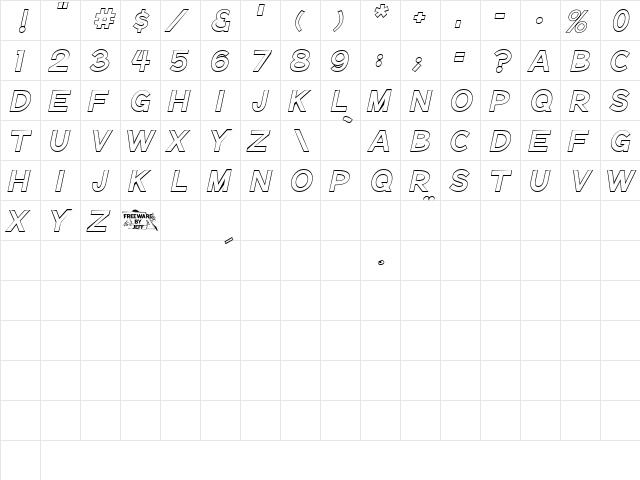
Notation Bold Italic Open JL Regular
| Foundry | Jeff's Fonts & Dingbats |
| Designer | Jeffrey N. Levine |
Design Context for Notation Bold Italic Open JL Typeface
Notation Bold Italic Open JL is a composed and adaptable typeface that performs quietly and consistently across a wide range of design contexts. Its italic angle brings a sense of urgency and motion to the letterforms. The heavy weight commands attention and anchors typographic hierarchies.